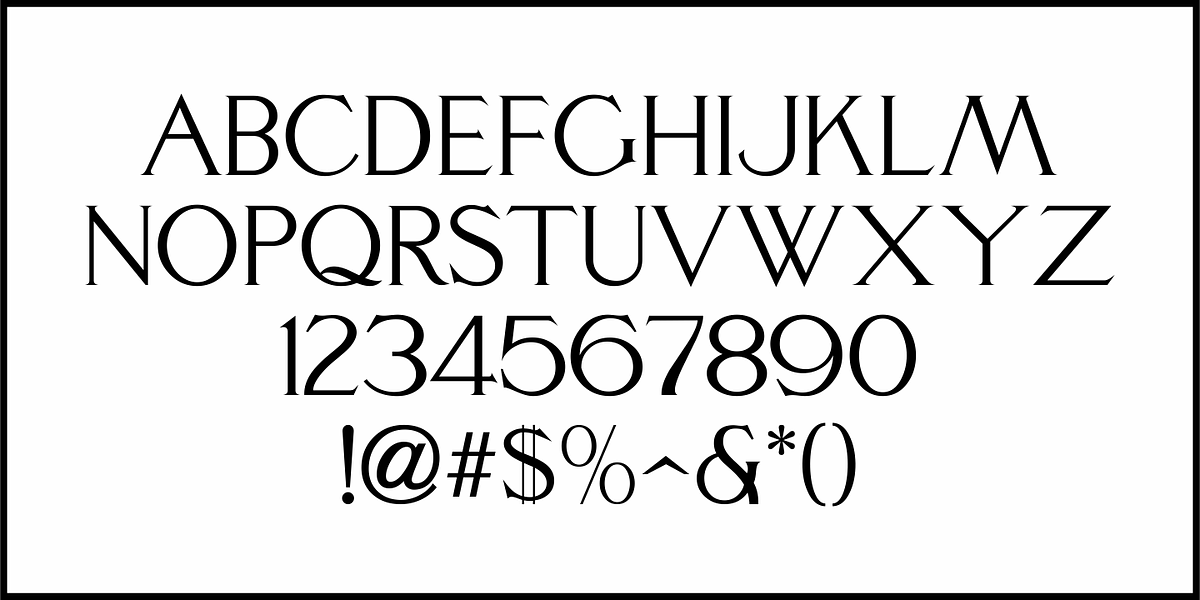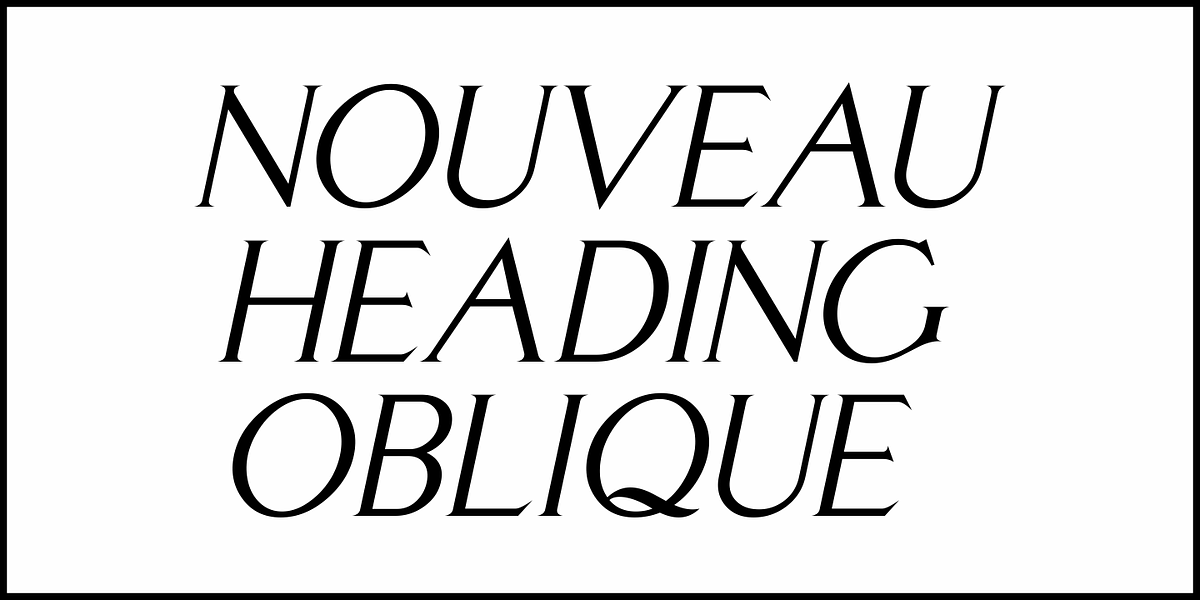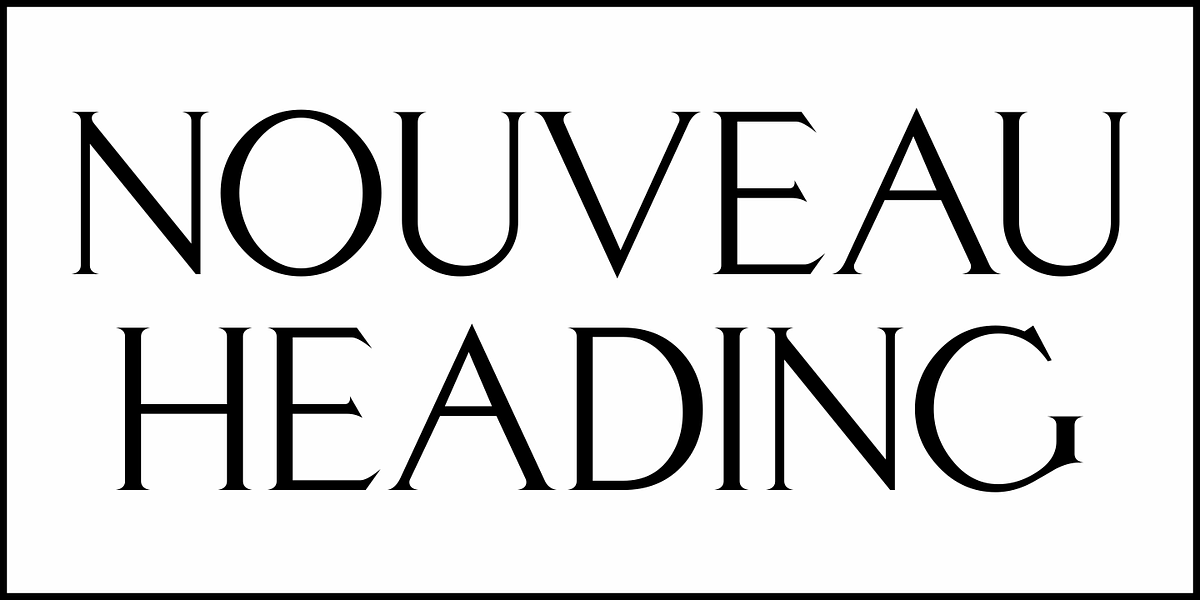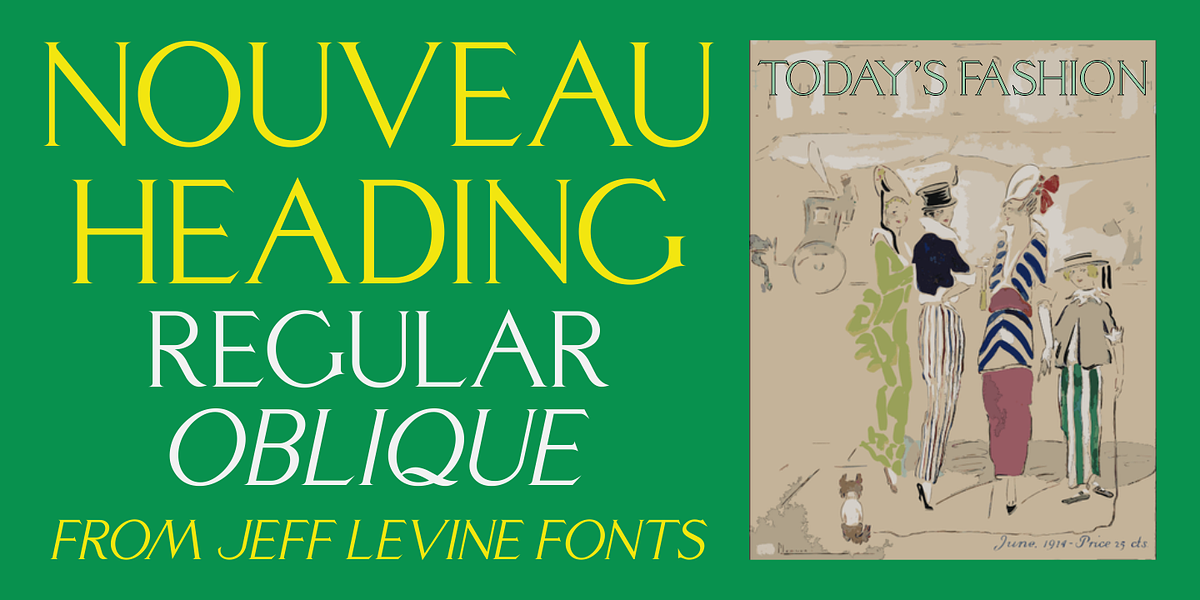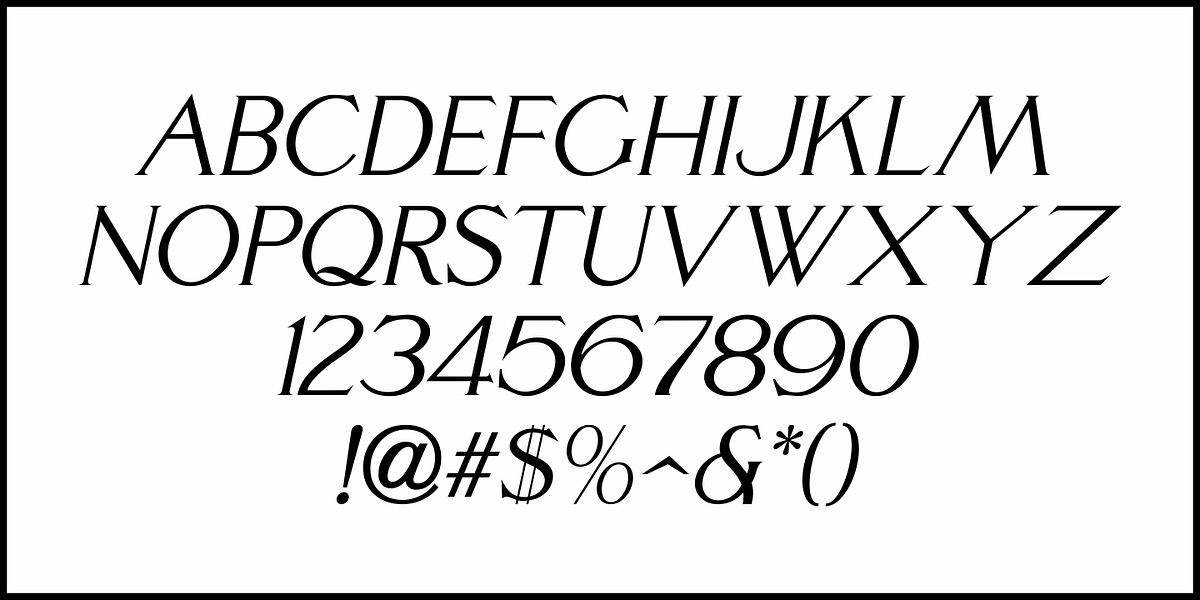
Nouveau Heading JNL
Some pleasant Art Nouveau spurred serif hand lettering was found on the cover of a 1902 issue of “The Century Magazine”.
This is now the digital typeface Nouveau Heading JNL, and is available in both regular and oblique versions.